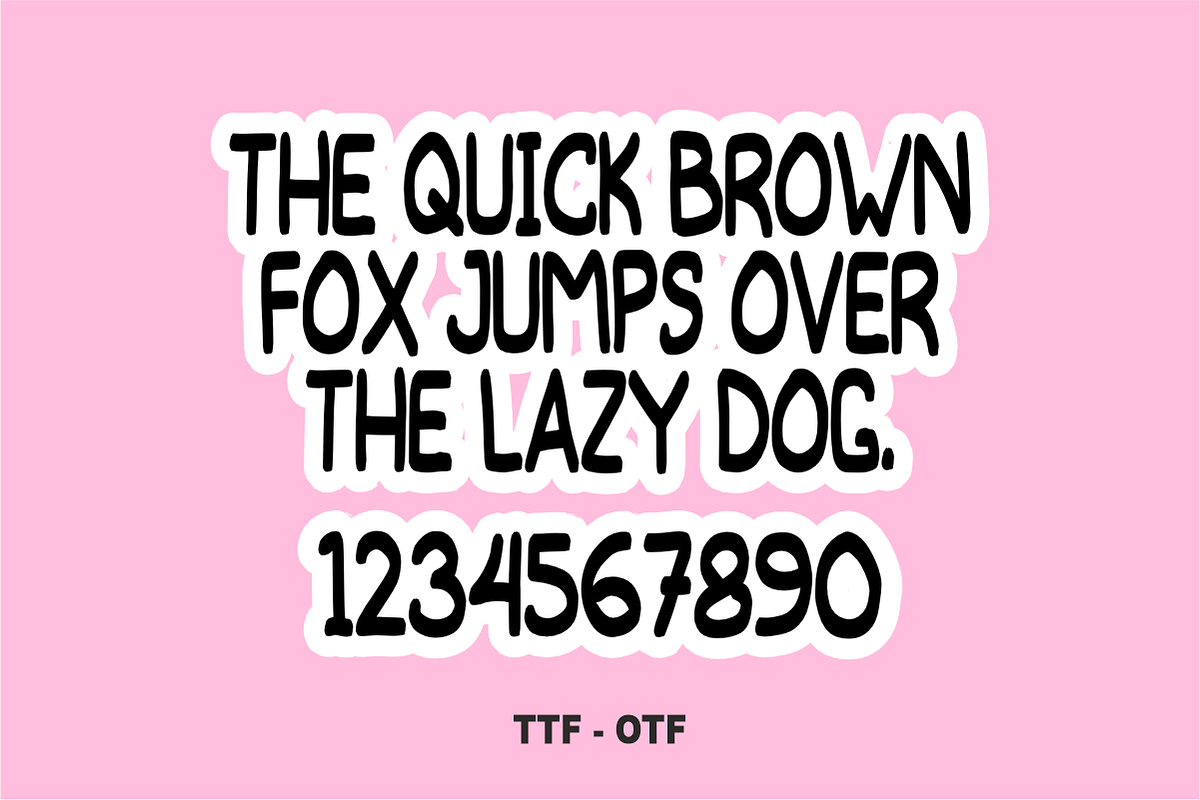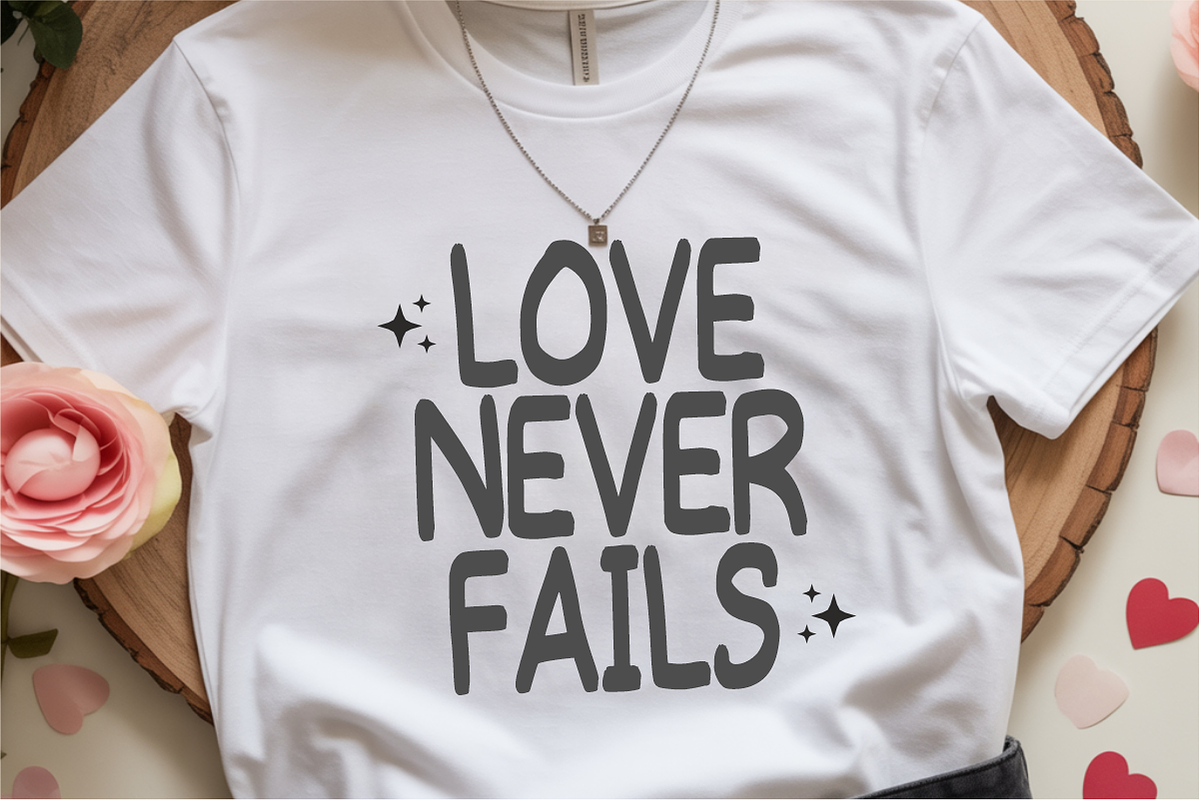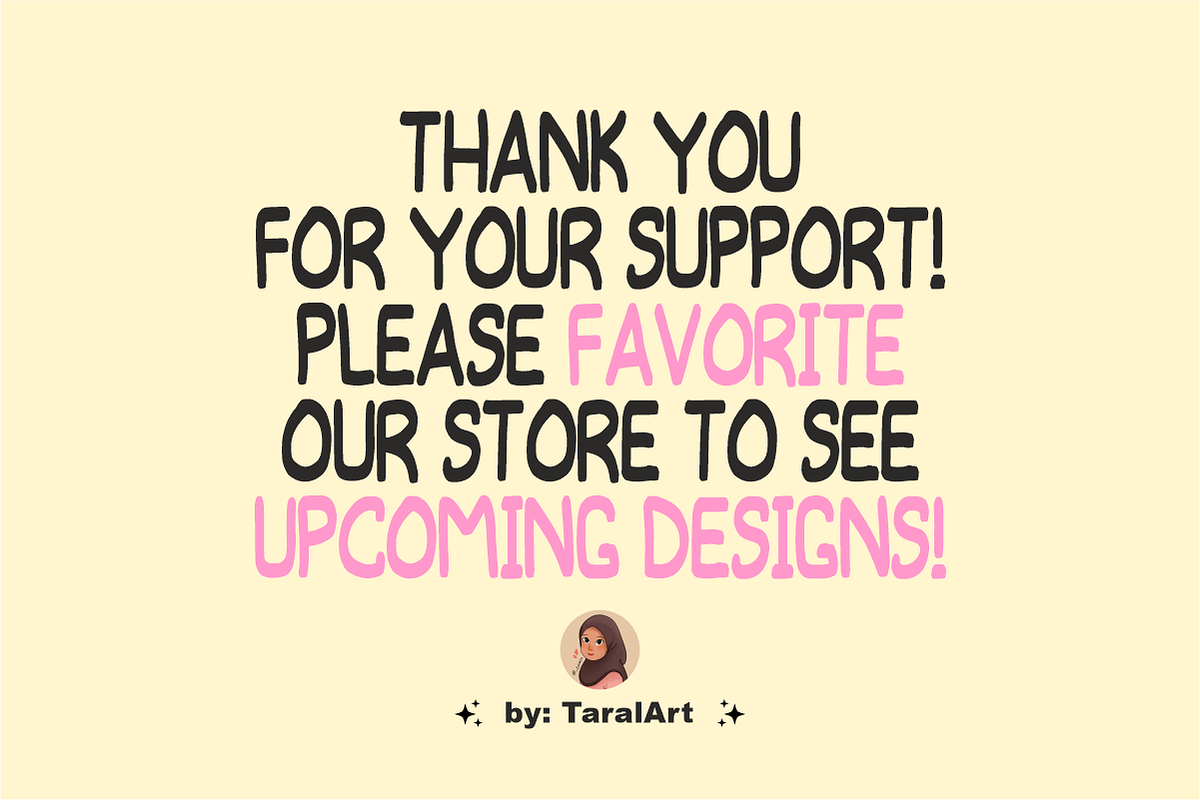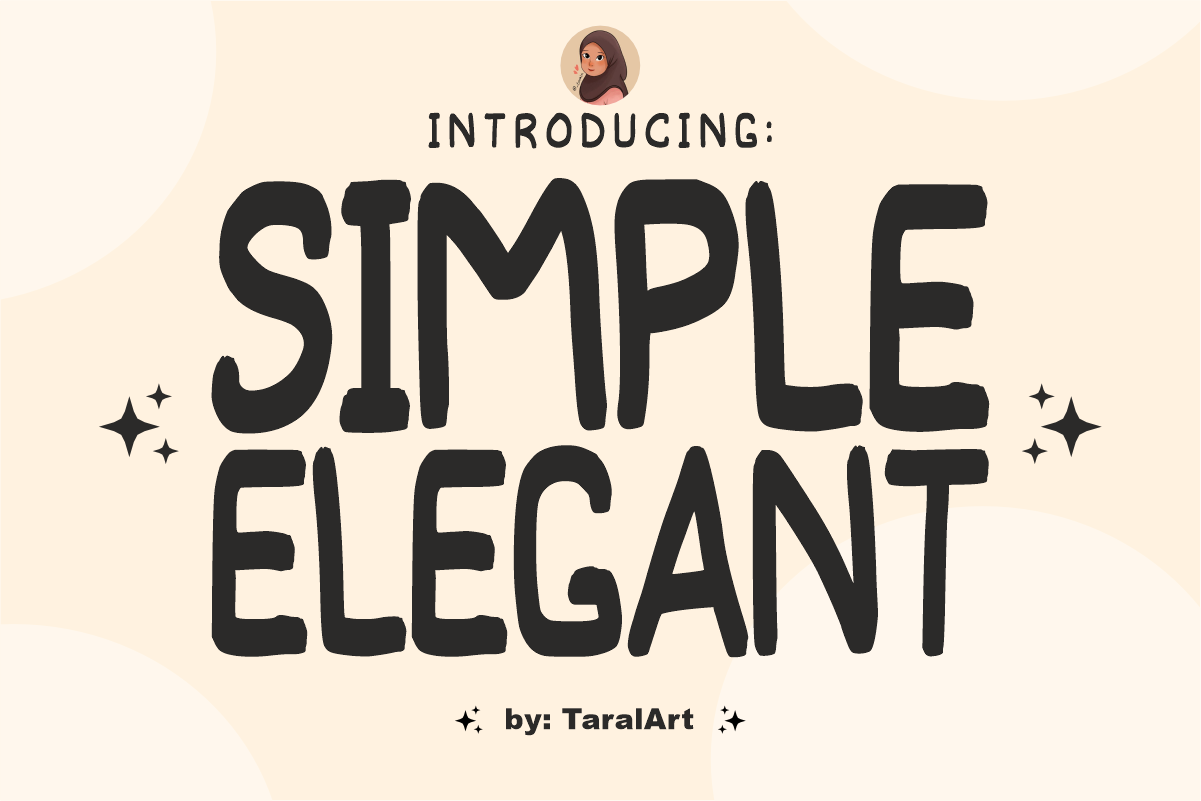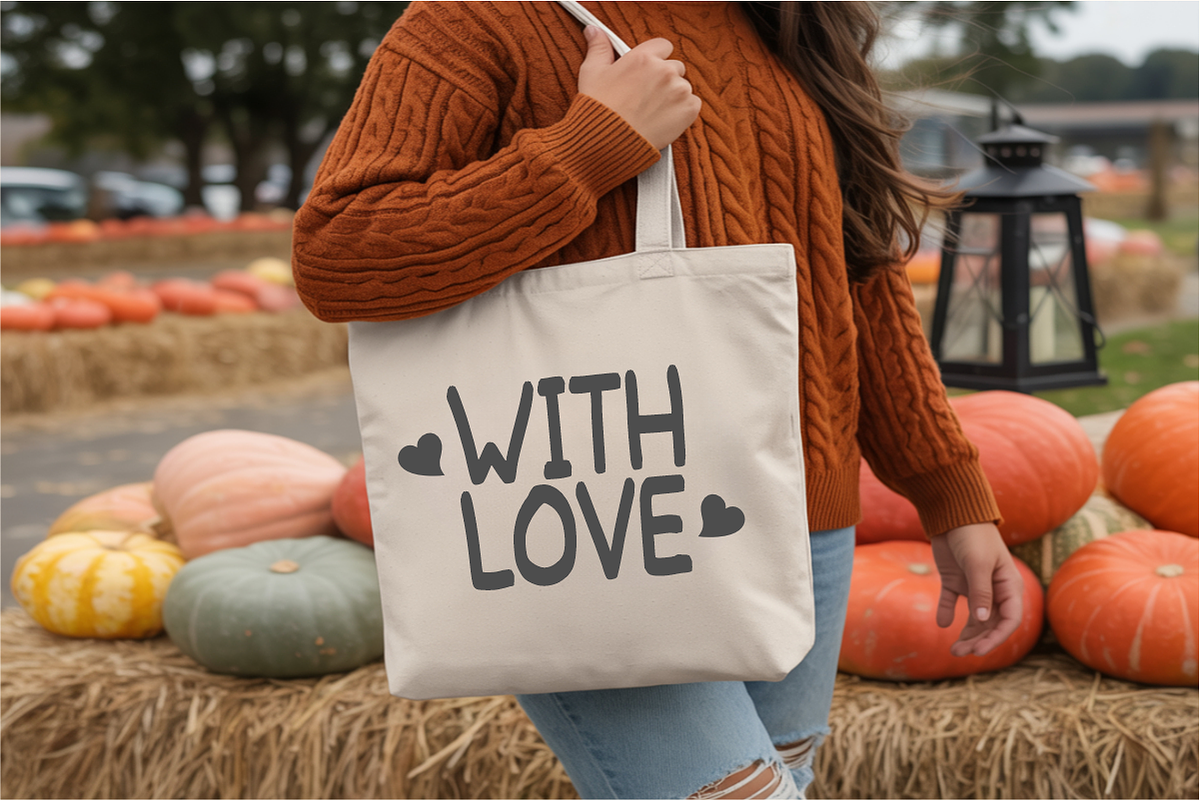
Simple Elegant - Playful Sans Font
Simple Elegant is a charming, tall handwritten display font that perfectly balances clean shapes with a warm, playful touch. Featuring bold, organically hand-drawn lines, this versatile sans-serif font instantly adds a friendly, bespoke feel to any project. Every character is cleanly vectorized to ensure flawless, crisp cutting on Cricut and Silhouette machines.